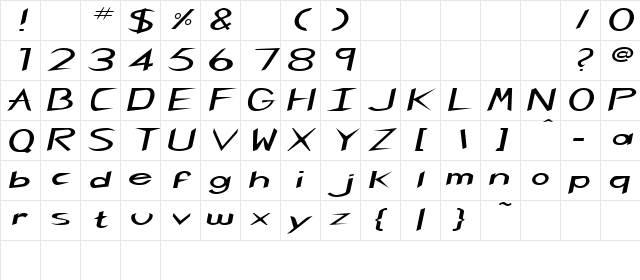
SingaporeExtended is a composed and adaptable typeface that performs quietly and consistently across a wide range of design contexts. The slanted form adds forward momentum and visual energy.
Pro Tip: Use SingaporeExtended for emphasis, pull quotes, and subheadings where its slanted energy can add rhythm to the layout.